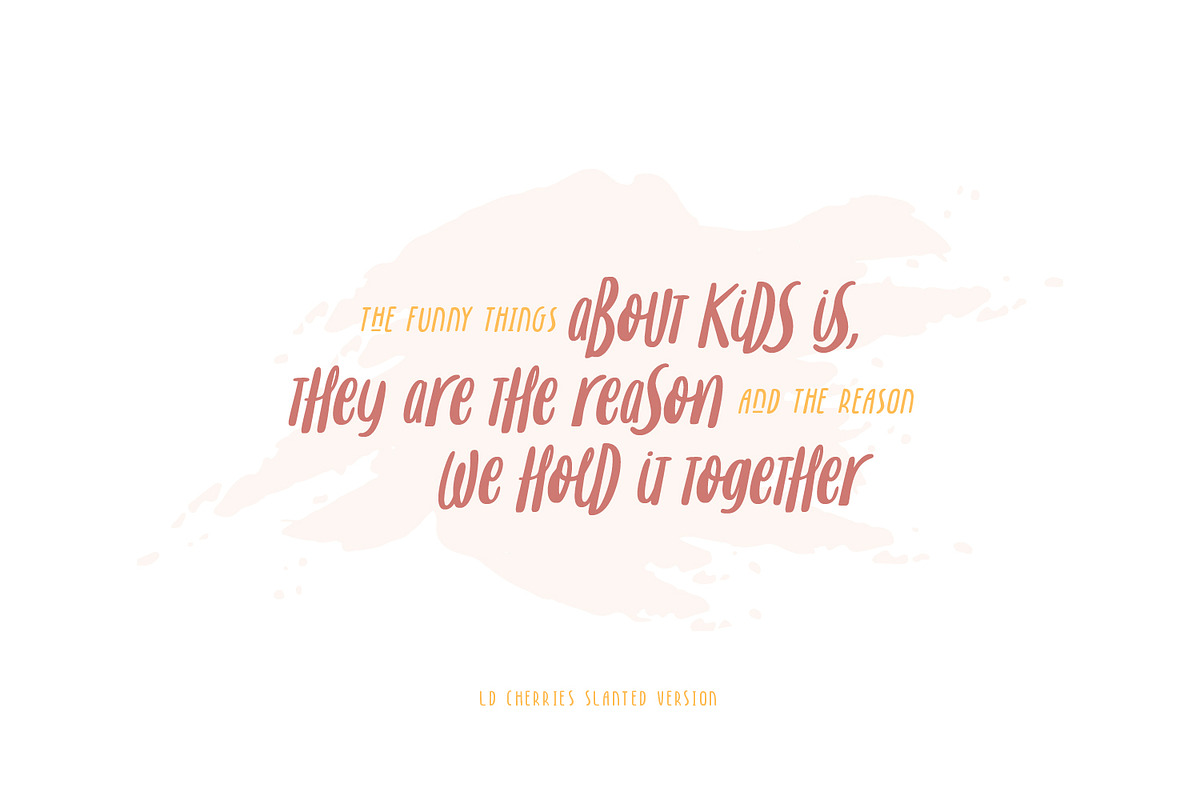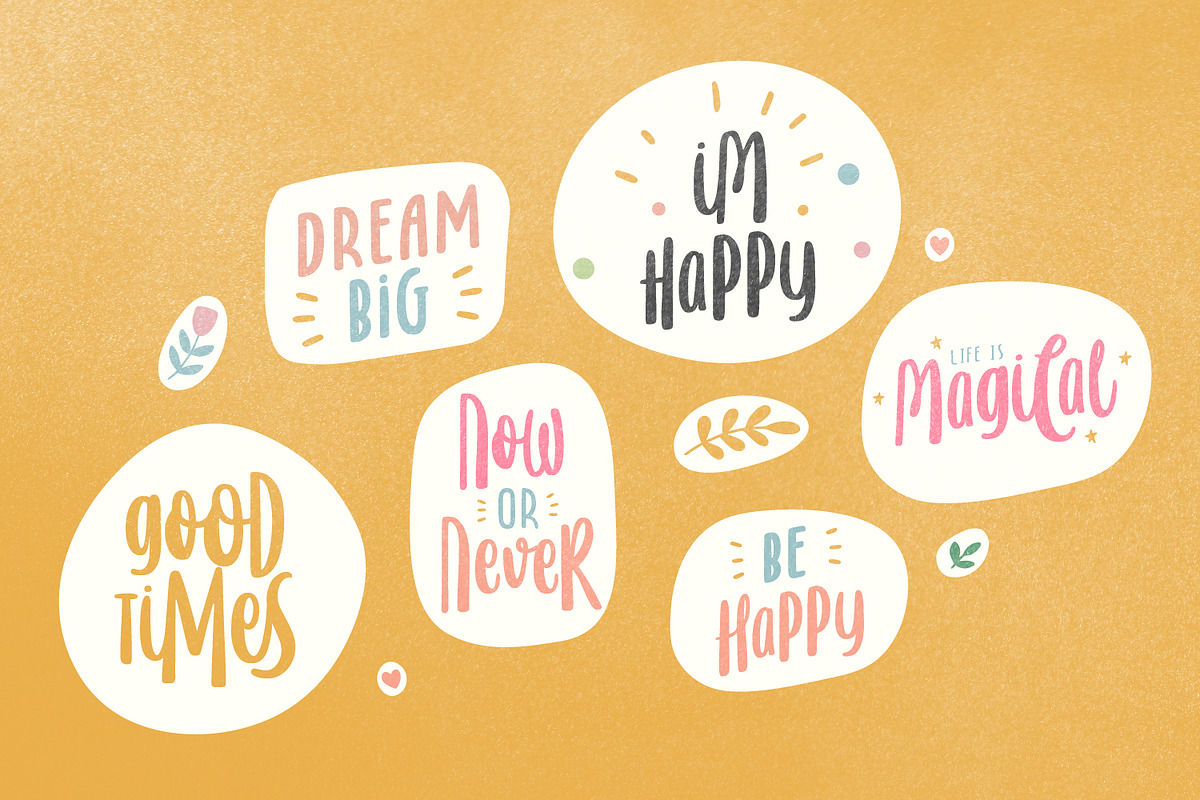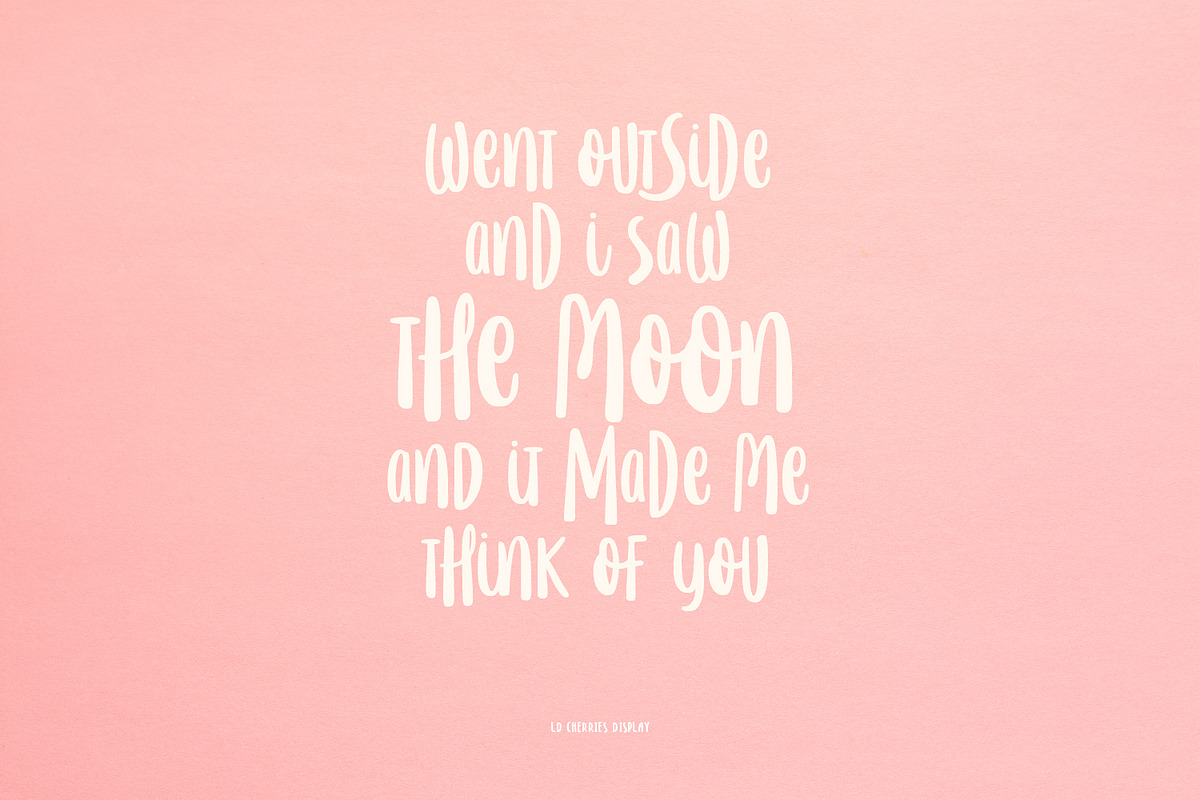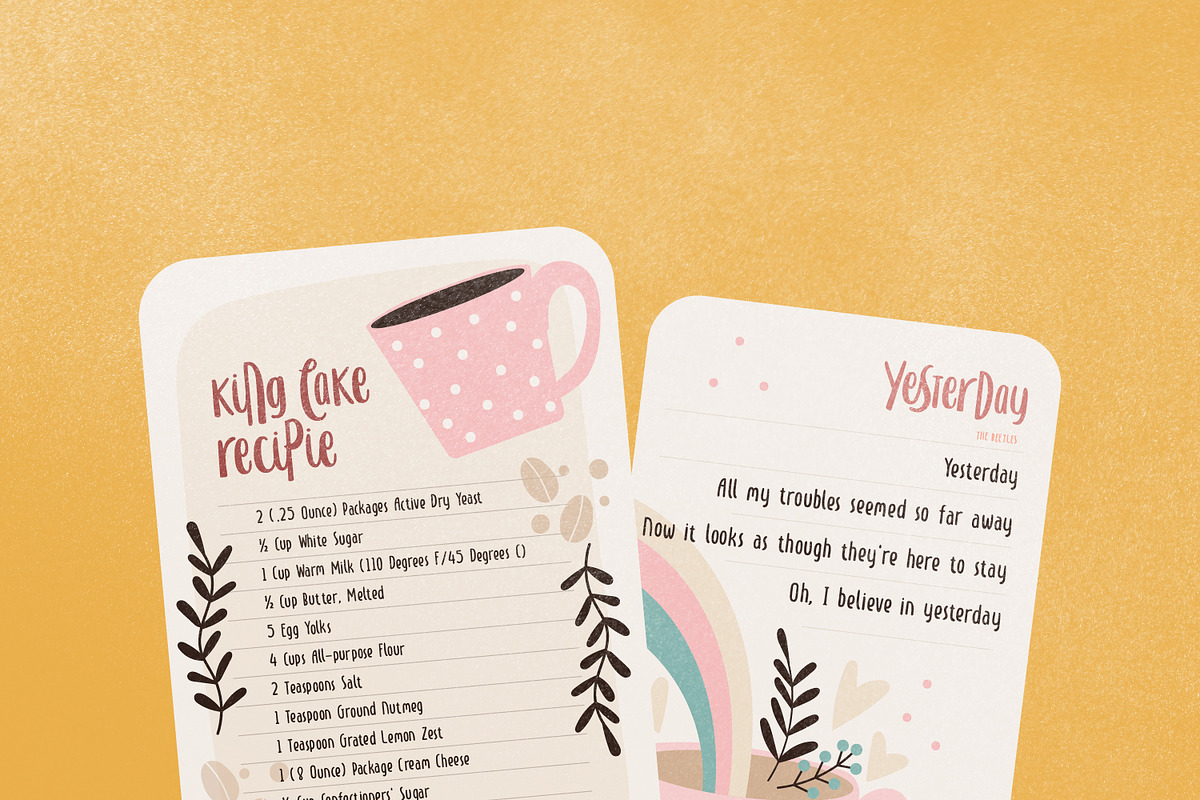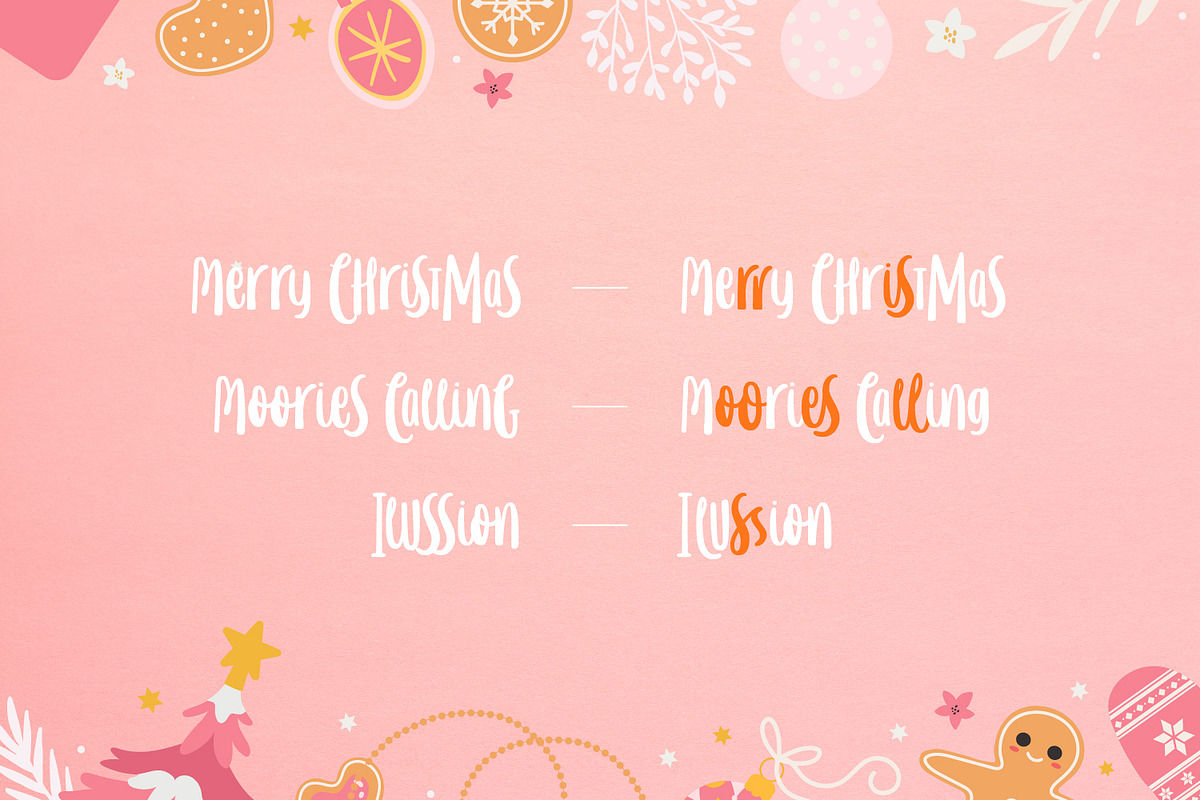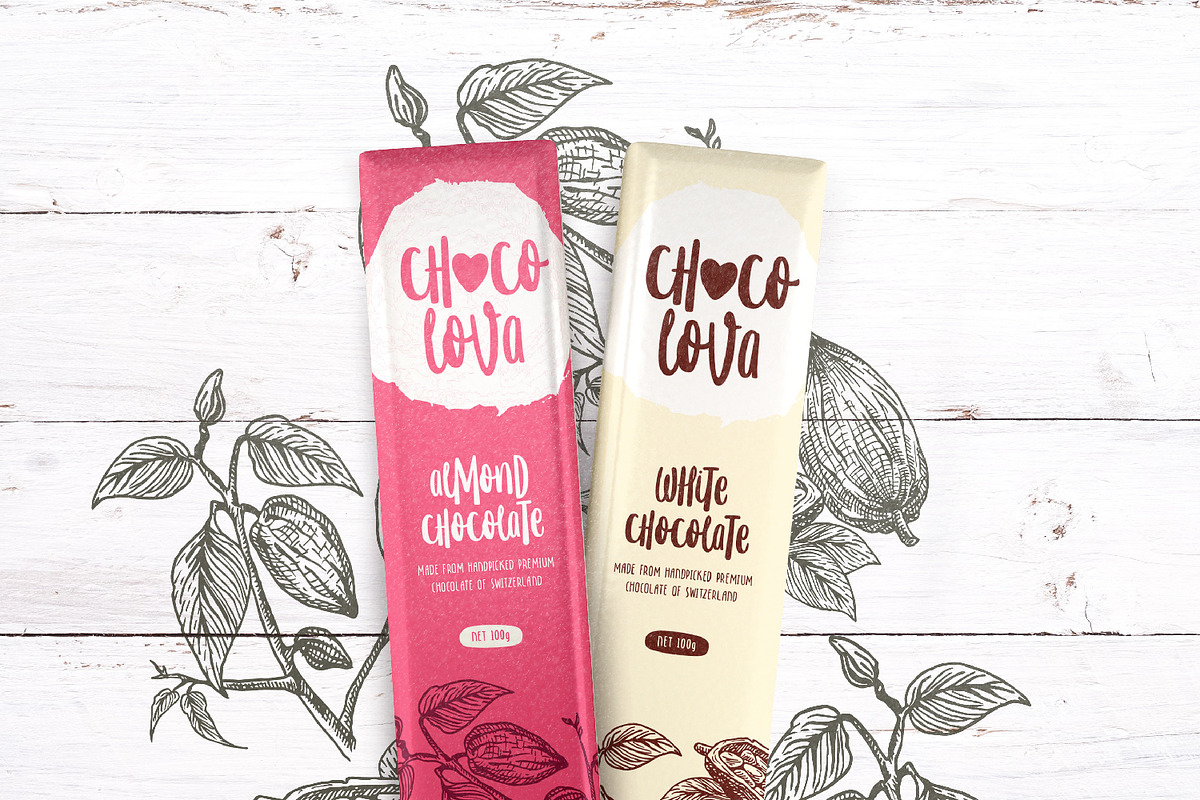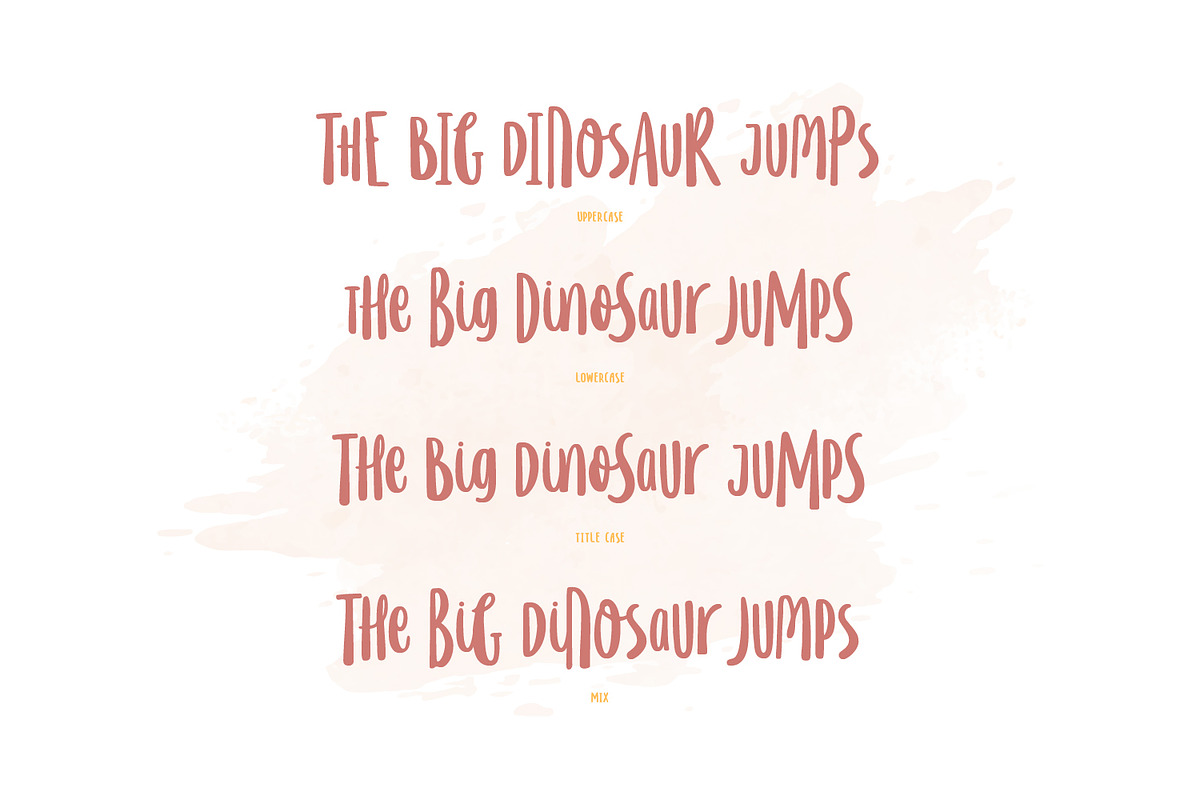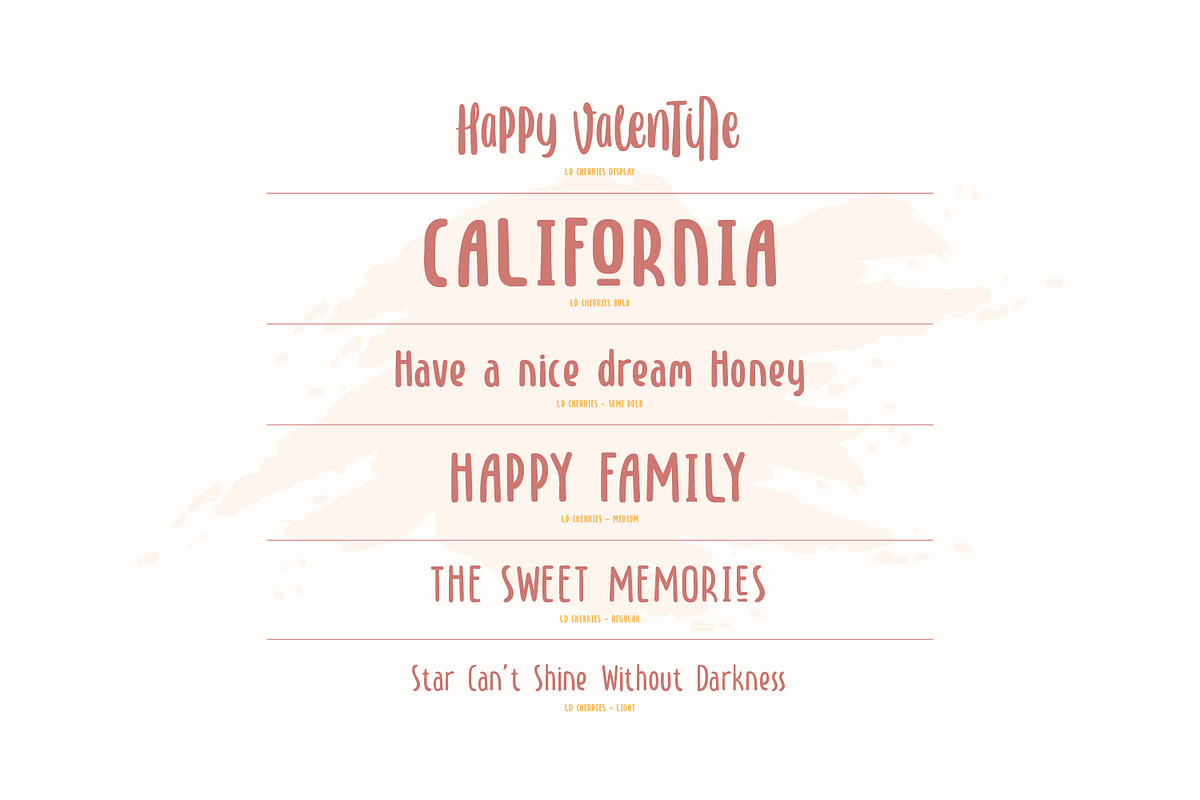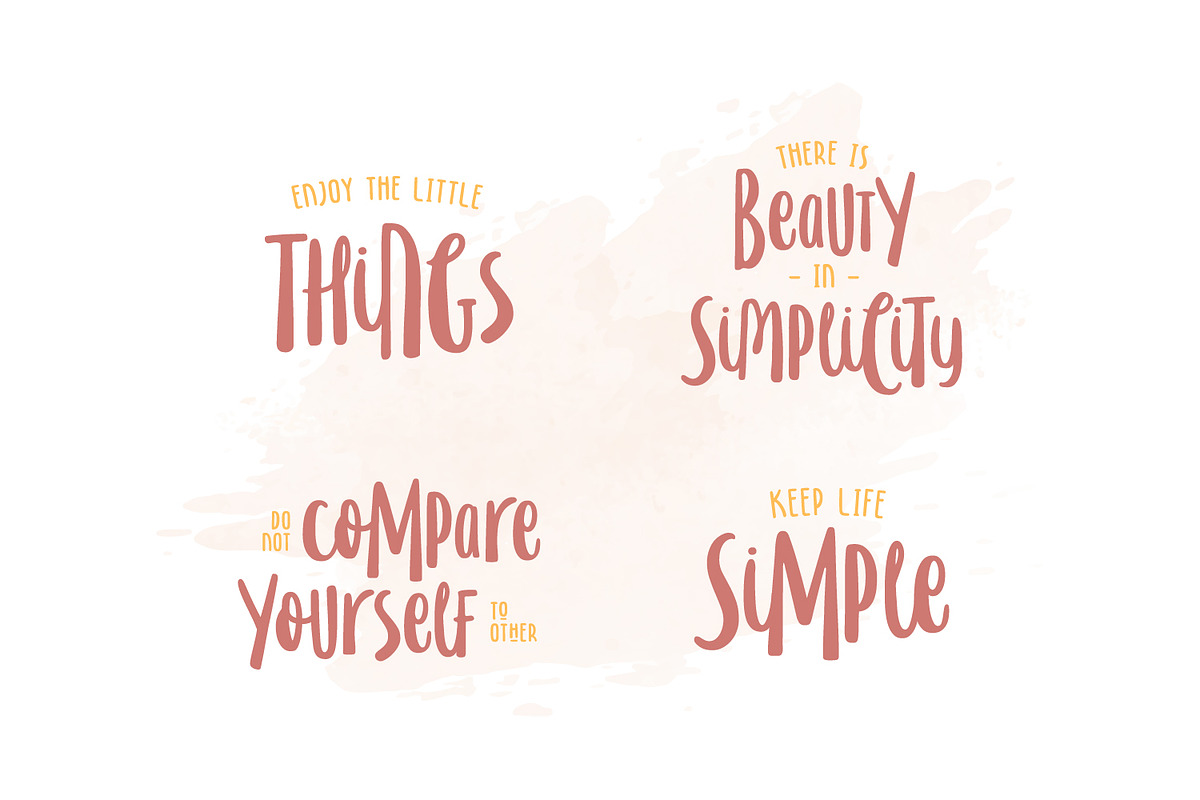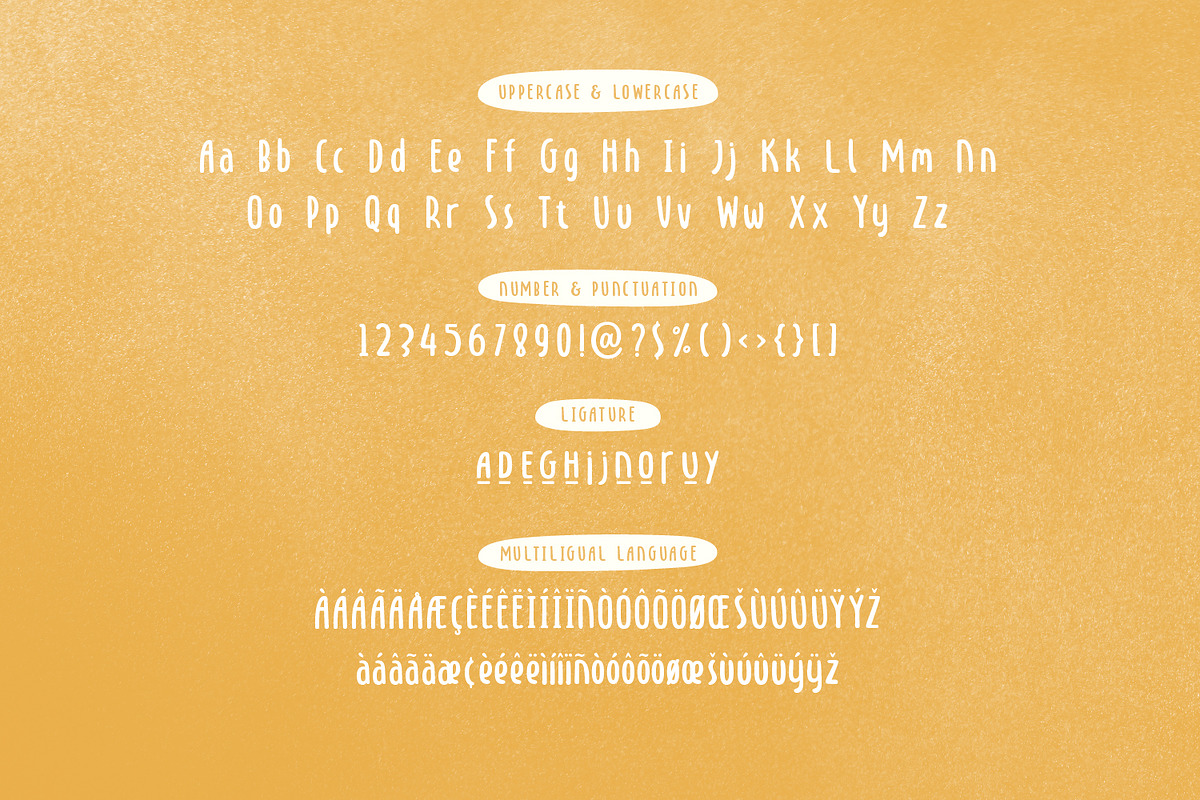
Cherries - 12 Fonts Styles
Hello... this is Cherries, a cute and bounch hand drawn font family. Cherries have 5 weight: light, regular, medium, semibold and bold with 2 styles: regular and slanted also included with pairing font Cherries Display. Cherries included with some alternate character and ligature to make your design awesome. Cherries is fun and very suitable for cute or girly design needs such as cover design, typography, sticker, greetings card, logo, merchandise and many more. Cherries also easy for read and you can use it for quote or caption. Add this beautiful handwritten font to each of your creative ideas and notice how it makes them stand out!